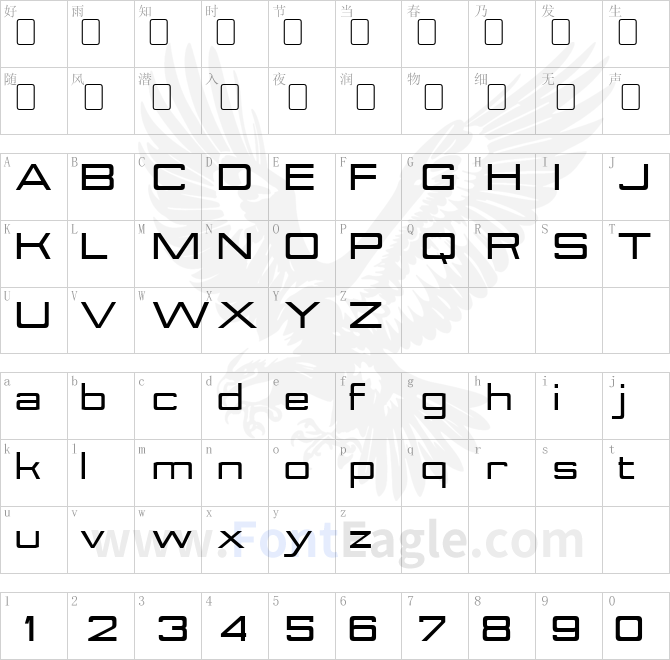
- Font name:Nesobrite Ex Bl
- Font Subfamily ID:RayLarabie: NesobriteExBl-Regular: 2007
- Font Full Name:NesobriteExBl-Regular
- Postscript:NesobriteExBl-Regular